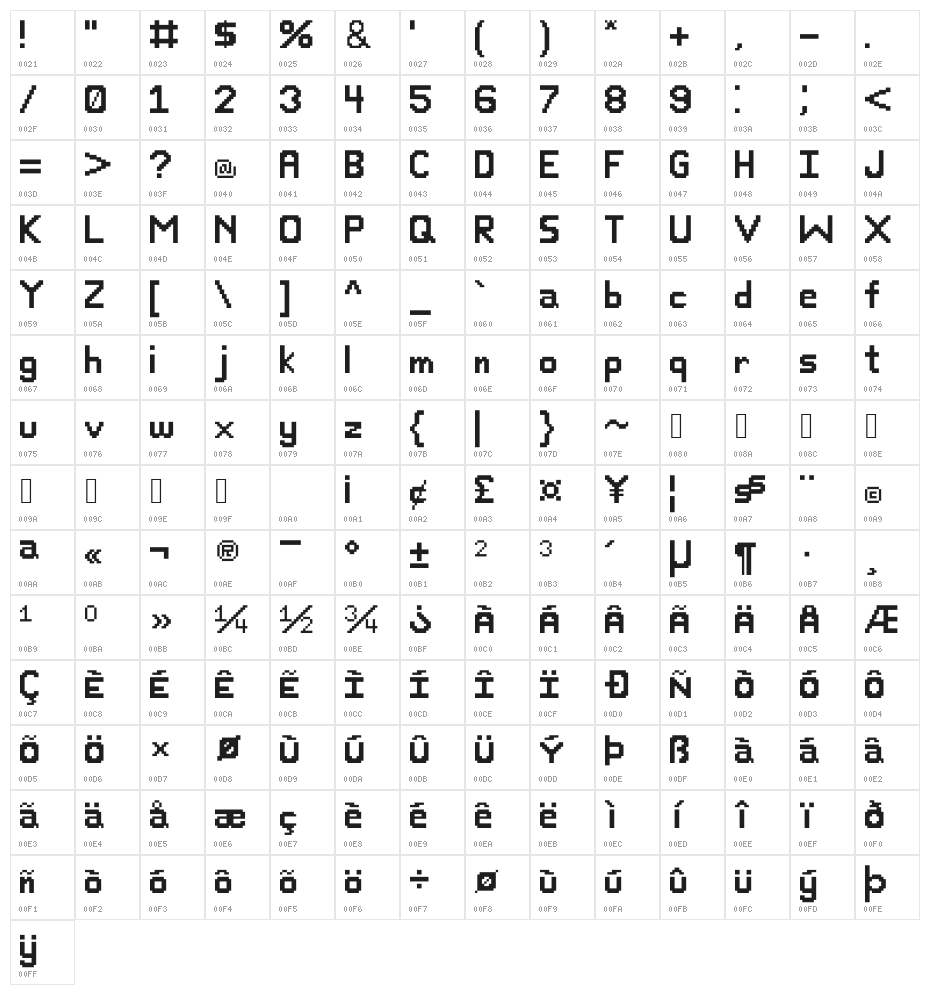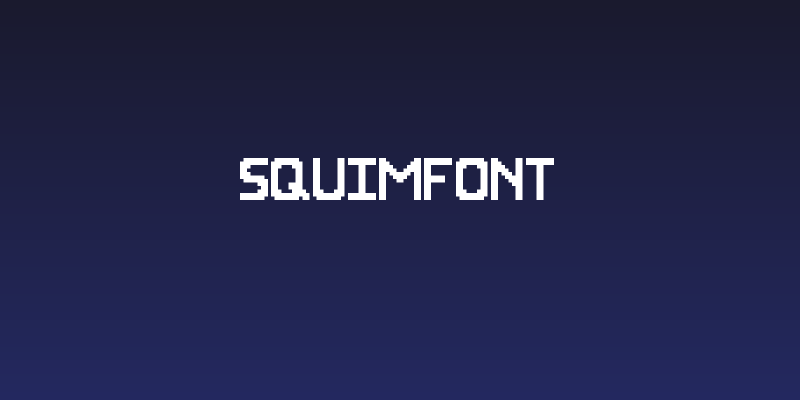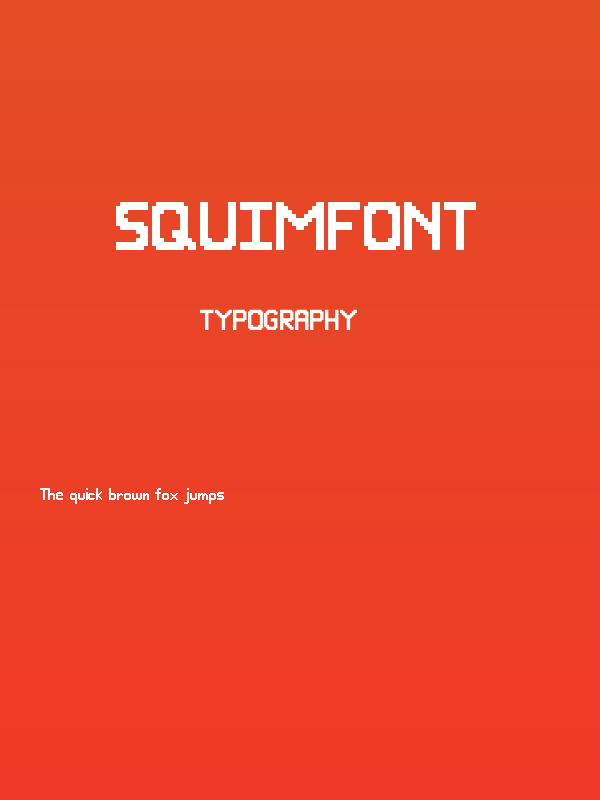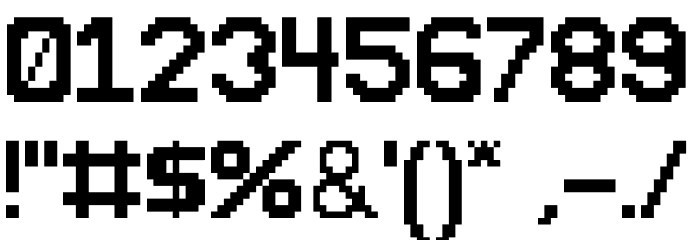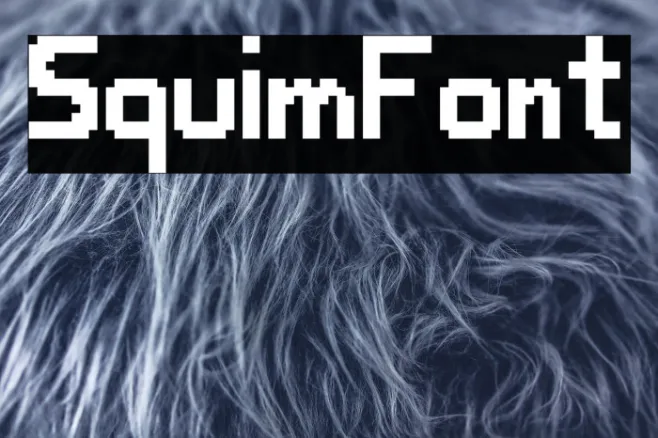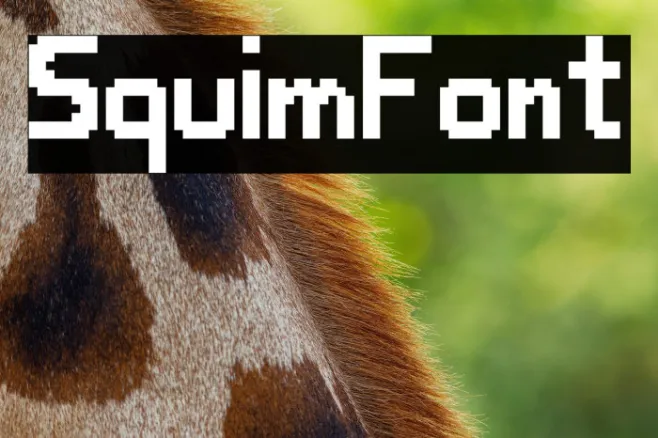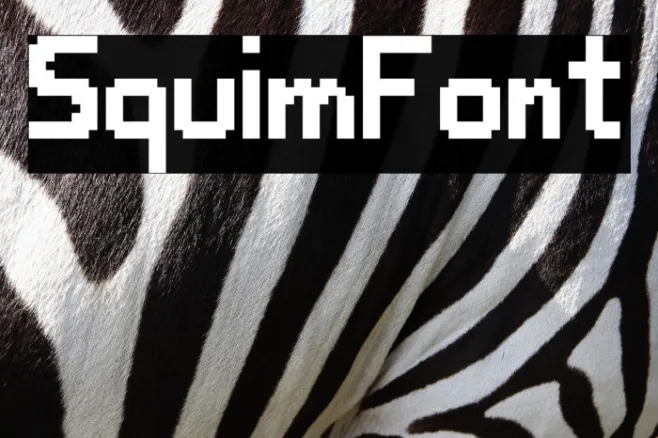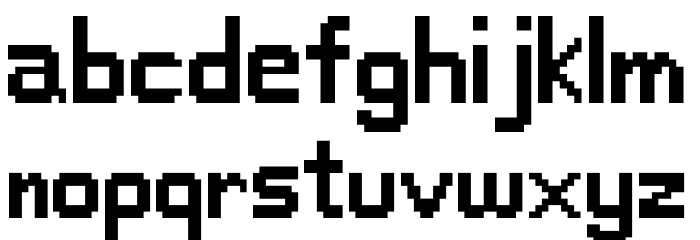
SquimFont Font
SquimFont Description
This font features a pixelated, blocky design reminiscent of early digital displays and retro video games. The characters are uniformly constructed with a grid-like appearance, giving it a distinctly digital and nostalgic feel. The uppercase and lowercase letters maintain a consistent height, with minimal differentiation in stroke width, contributing to its uniformity. The numerals and special characters follow the same pixelated style, ensuring a cohesive look across all glyphs. This font is ideal for projects that aim to evoke a sense of nostalgia or a retro digital aesthetic. Its simplicity and clarity make it suitable for both display and decorative purposes, particularly in contexts where a vintage or tech-inspired theme is desired.
| Use Case | Headlines, Logos, Decorative text |
| Proposed Projects | Ideal for retro video game graphics, digital-themed posters, tech-inspired branding, and nostalgic digital displays. |